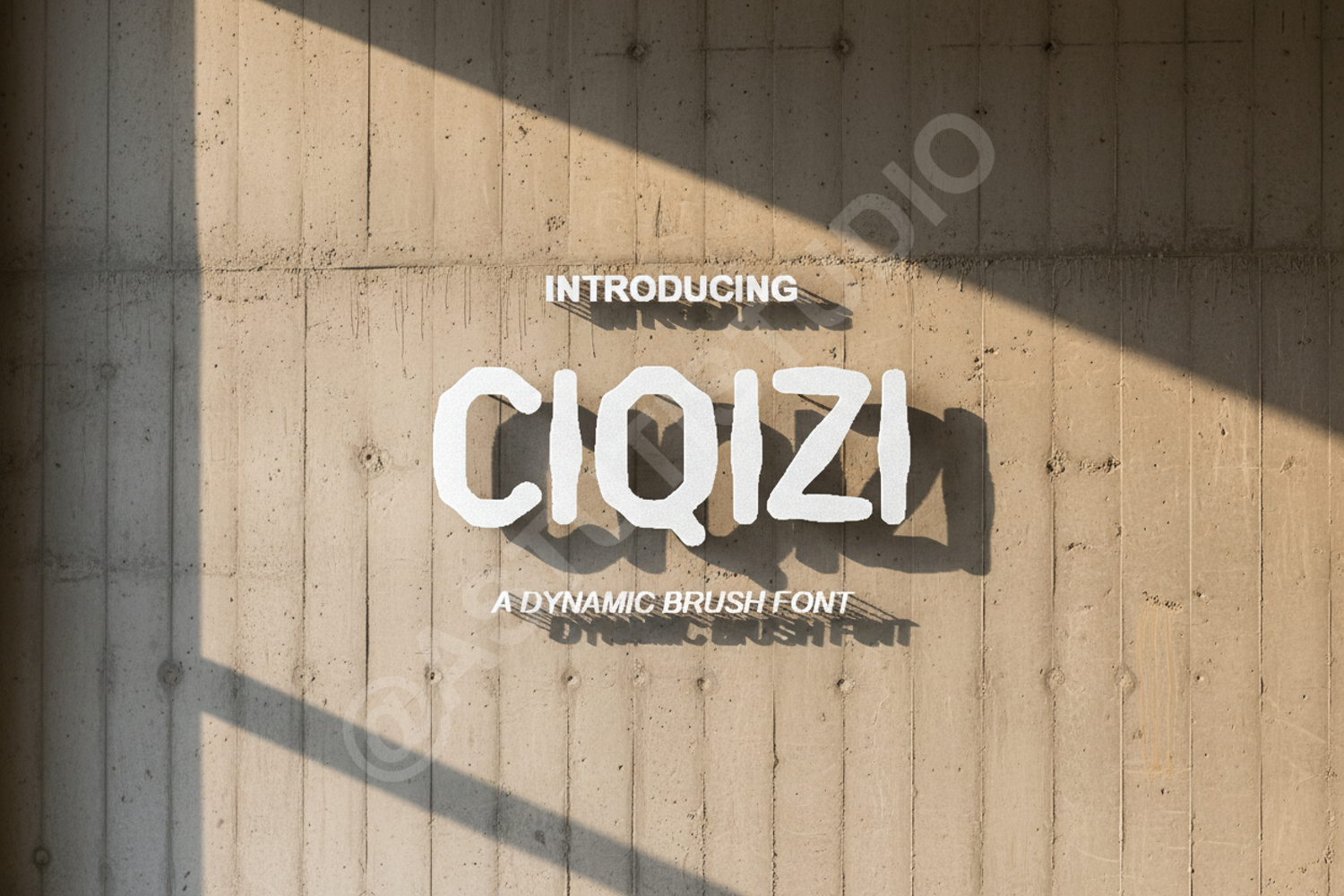
Ciqizi - Modern Elegant Serif Font
Ciqizi
Elevate your design projects with Ciqizi, a premium serif font that embodies modern elegance and sophisticated charm. Meticulously crafted for high-end aesthetics, Ciqizi offers a perfect balance of sharp serifs and fluid curves, making it an essential addition to any professional designer's toolkit. Its versatile nature ensures that your work remains timeless and impactful.
- Luxury Branding and Identity: Create memorable logos and brand marks that exude class.
- Wedding Stationery: Perfect for high-end invitations, menus, and elegant place cards.
- Editorial Design: An ideal choice for magazine headlines, book covers, and sophisticated layouts.
- Social Media Graphics: Enhance your digital presence with clean, professional typography.
- Product Packaging: Add a touch of premium quality to labels, boxes, and retail tags.